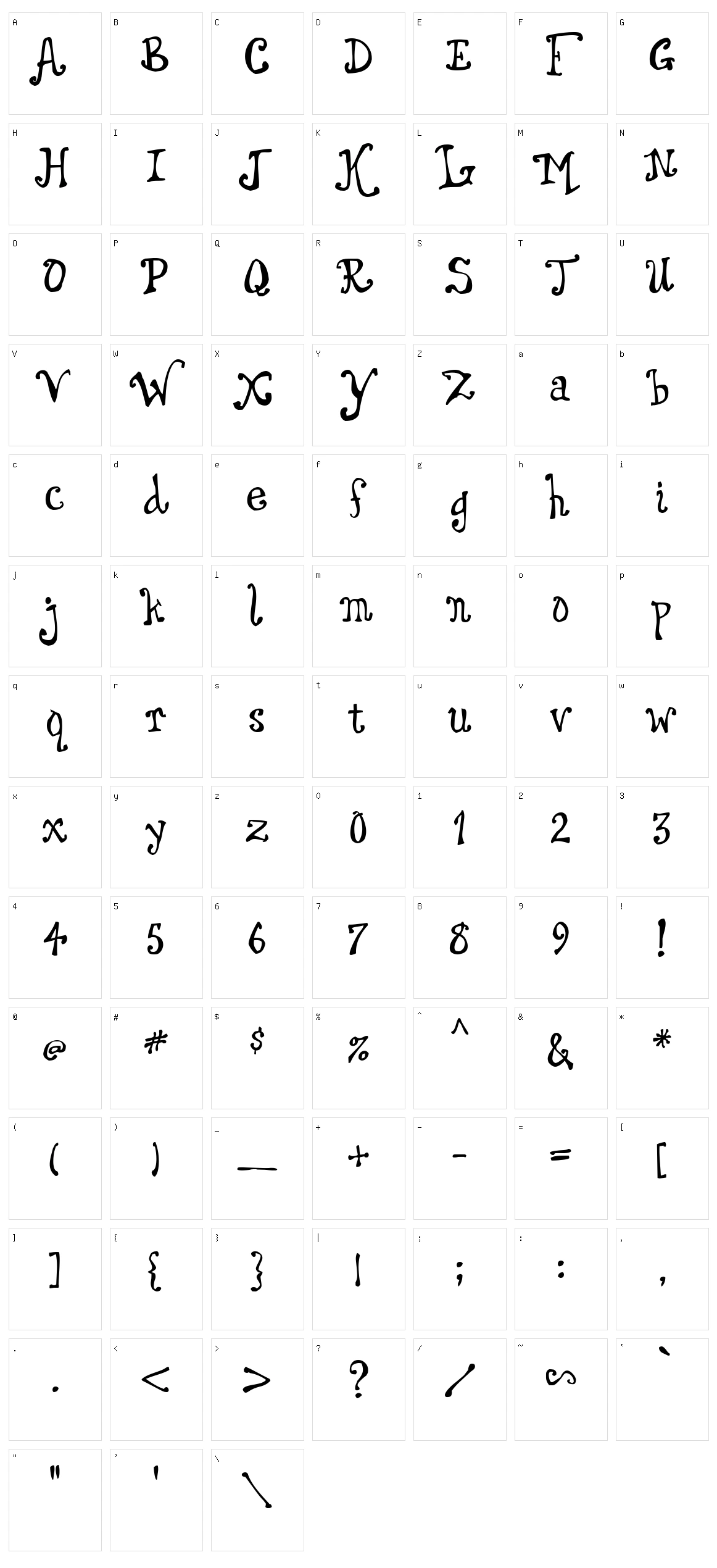
The free font Dingle Berries is carefully designed by deFaced, showcasing a thoughtful balance of creativity and usability and falls under the Script font style. When you download the ZIP file, it contains only 24.72 KB of font files, making it lightweight and quick to download. Please review the license details below to understand permitted usage and distribution rights. If license information is not available, we recommend using this font for personal projects only or contacting the author directly for commercial usage permissions.